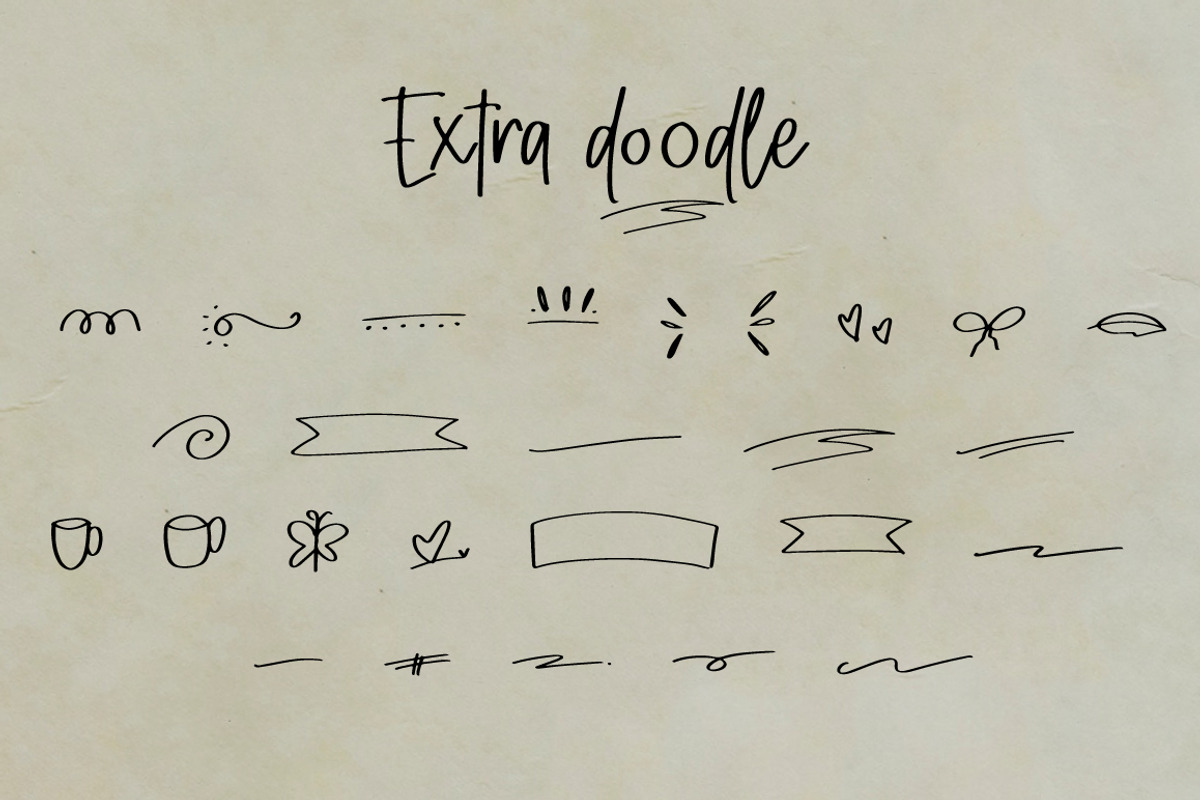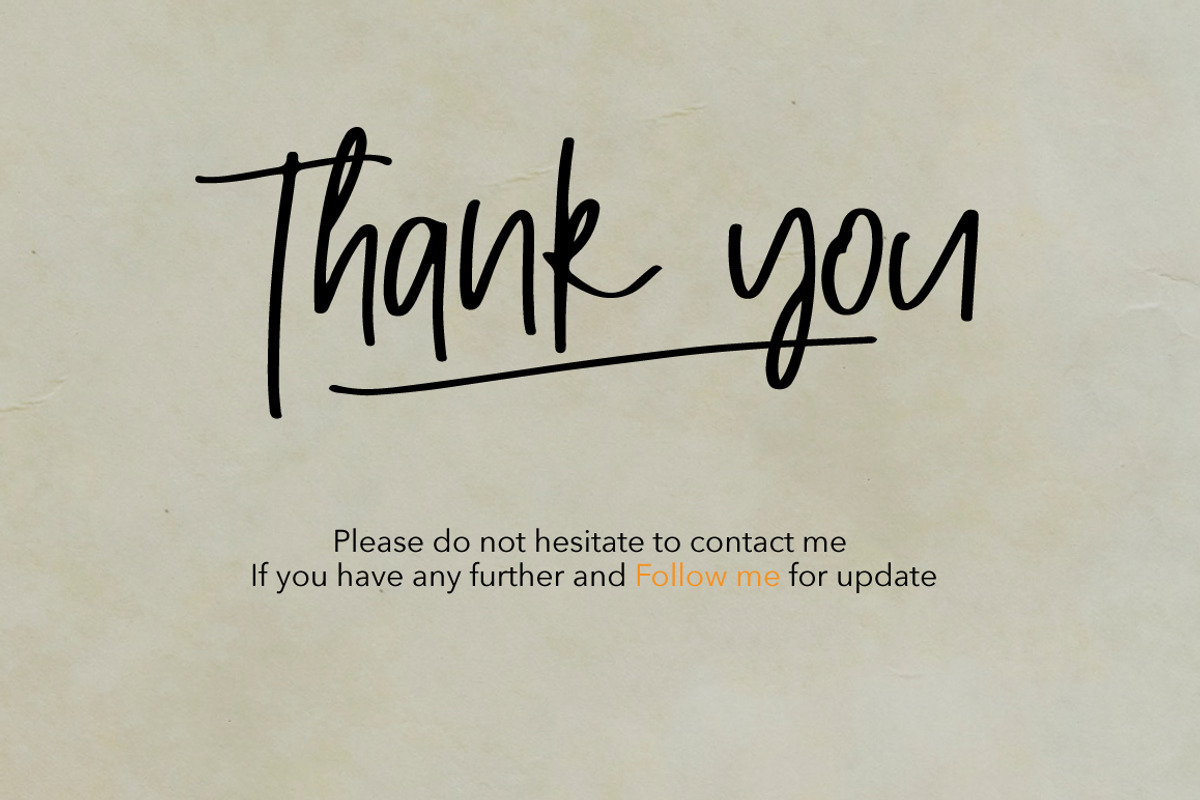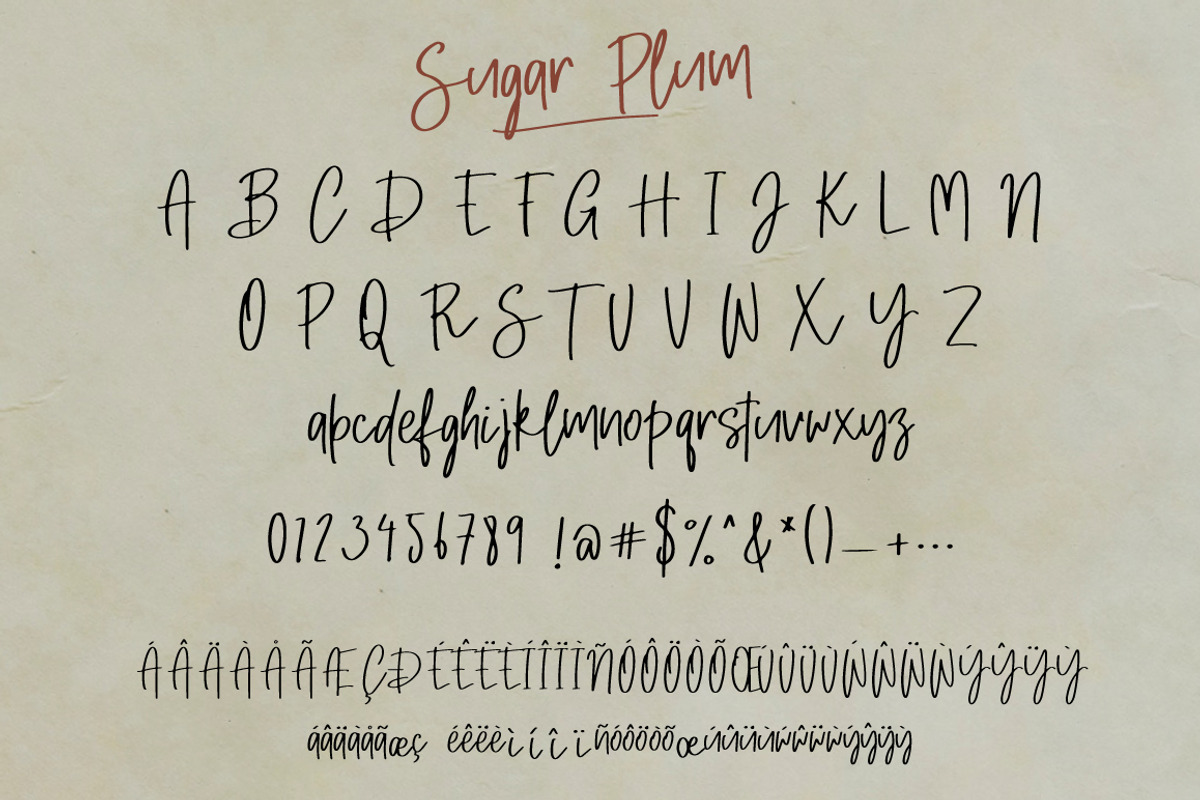
Sugar Plum with Extra Doodle
Sugar Plam is A classy Signature font with Extra Doodle
Every single letter has been creative carefully and Perfectly Playful new font pair. This font is a perfect script designed for making your set of invitations, Brand, blog posts, and more completely beautiful
And you get Ligatures
Multilingual support is included for Western European